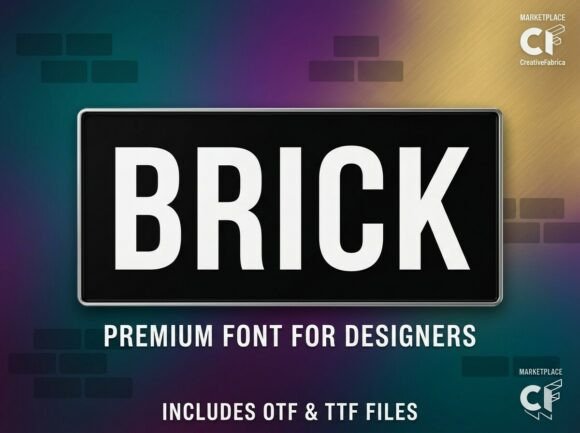
The Ultimate Brick Font Guide: Elevate Your Designs with this Stunning Display Font
I’ll never forget the time I was working on a branding project for a trendy new coffee shop. My client wanted a bold, eye-catching logo that would stand out on their packaging and marketing materials. I spent hours scouring font libraries and design marketplaces, but nothing seemed quite right. That was until I stumbled upon the Brick Font – a game-changing decorative display font that instantly elevated my design to the next level.
What is Brick Font?
Brick Font is a stunning decorative display font designed to be the center of attention. With its unique artistic elements and strong visual personality, it’s perfect for creators who want to break away from the ordinary. This versatile font is ideal for bold headlines, artistic logos, and creative packaging, while maintaining a professional and polished finish.
- ✨ Unique and artistic design that’s sure to turn heads.
- ✅ Strong visual personality that adds a touch of sophistication to any design.
- 💥 Versatile enough for use in a variety of creative projects, from bold headlines to artistic logos.
While this may seem limiting, it’s actually a deliberate design choice that allows each letter to shine as a standalone art piece. However, it’s essential to consider this when planning your project.
The Designer Inspiration Behind Brick Font
Brick Font was inspired by the urban landscapes of modern cities. The designer wanted to create a font that would reflect the strength and creativity of metropolitan architecture. With its unique artistic elements and strong visual personality, Brick Font is the perfect representation of this inspiration.
| Font Name | Brick Font |
| Author | Bluebird |
Q: Is Brick Font suitable for body text?
A: No, Brick Font is a display font designed for headlines, logos, and decorative initials. It’s not recommended for body text.